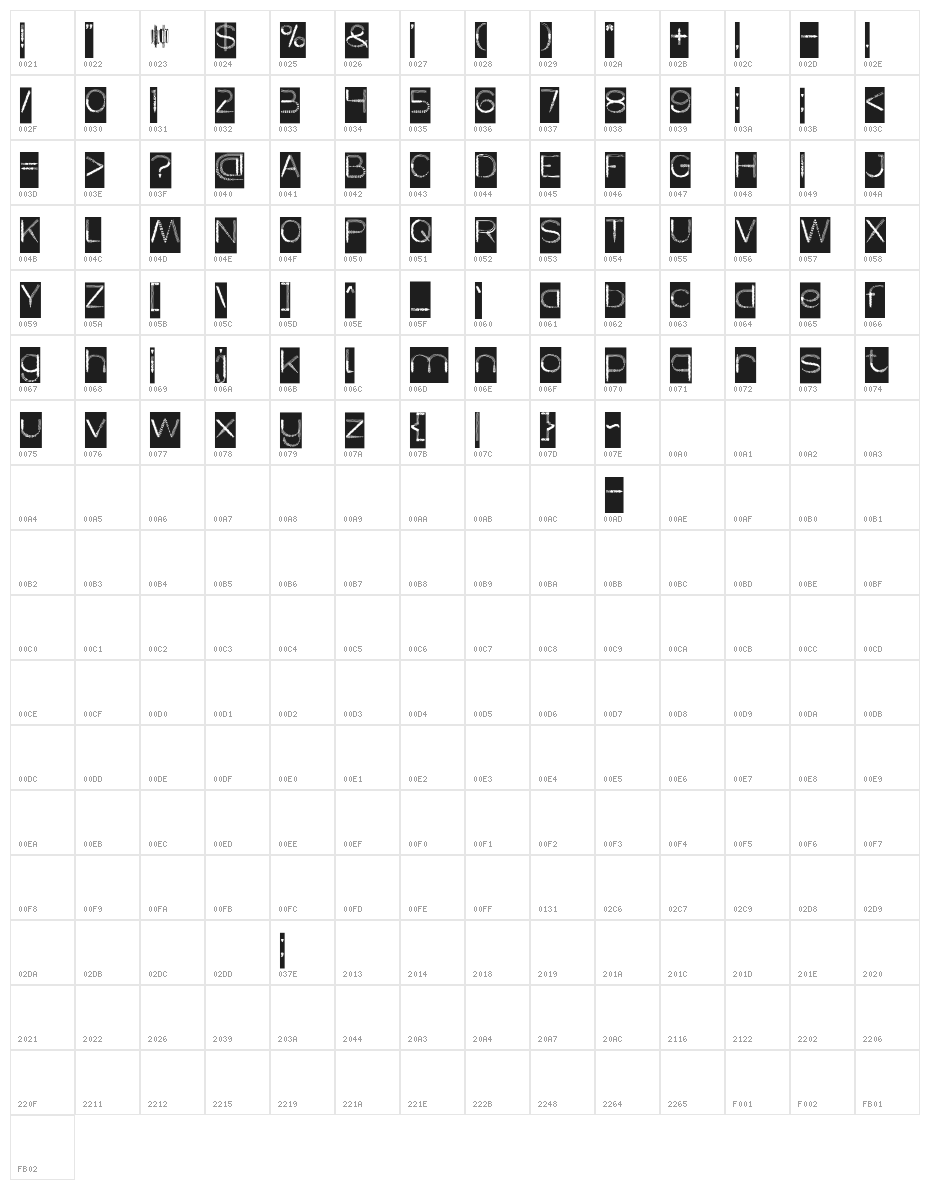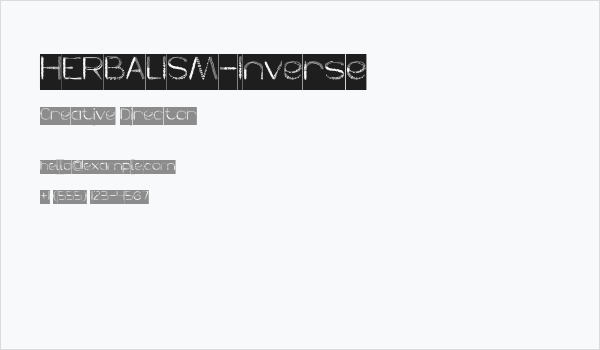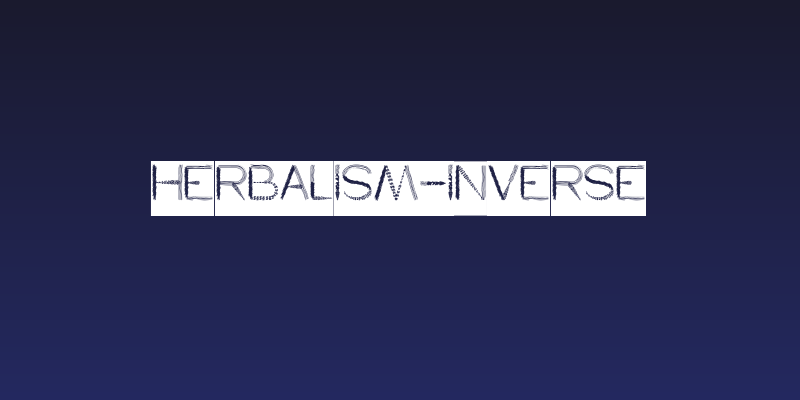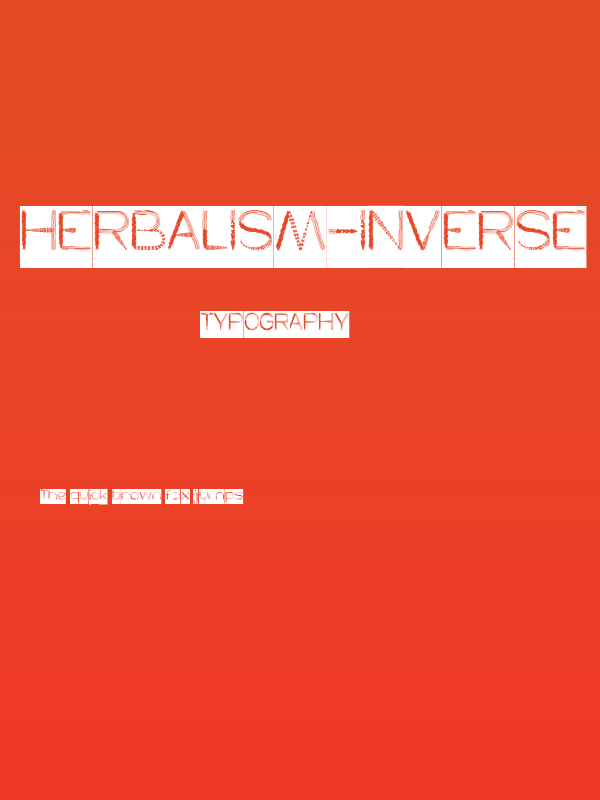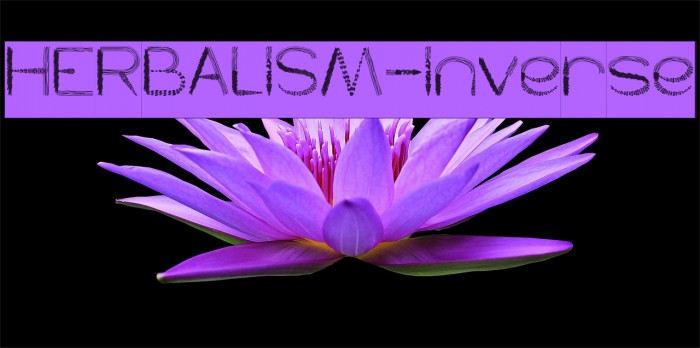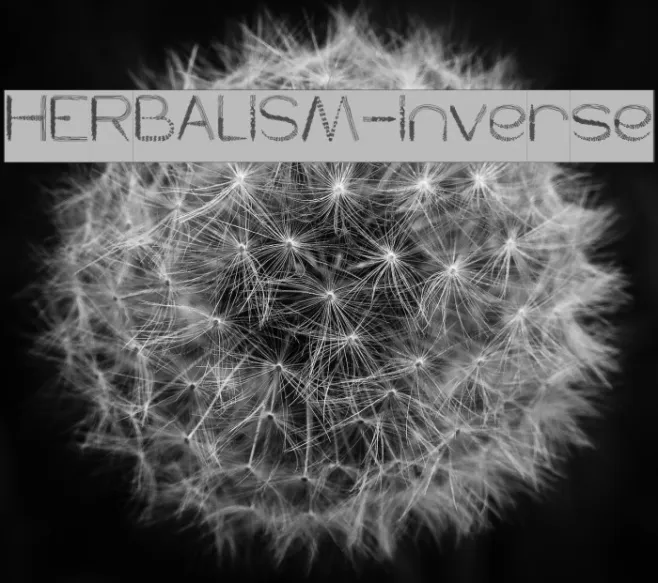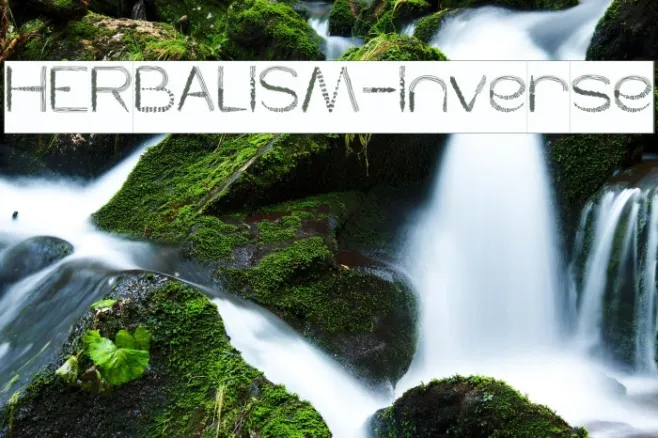
HERBALISM-Inverse Font
HERBALISM-Inverse Description
This font features a unique and decorative style, characterized by intricate patterns resembling leaves or vines intertwined within each letterform. The design is highly detailed, with a natural and organic aesthetic that evokes a sense of nature and growth. The uppercase and lowercase letters maintain a consistent theme, with each character exhibiting a distinct texture that adds depth and visual interest. The numerals and special characters follow the same stylistic approach, ensuring a cohesive look across all glyphs. This font's artistic flair makes it suitable for projects that require a touch of elegance and creativity.